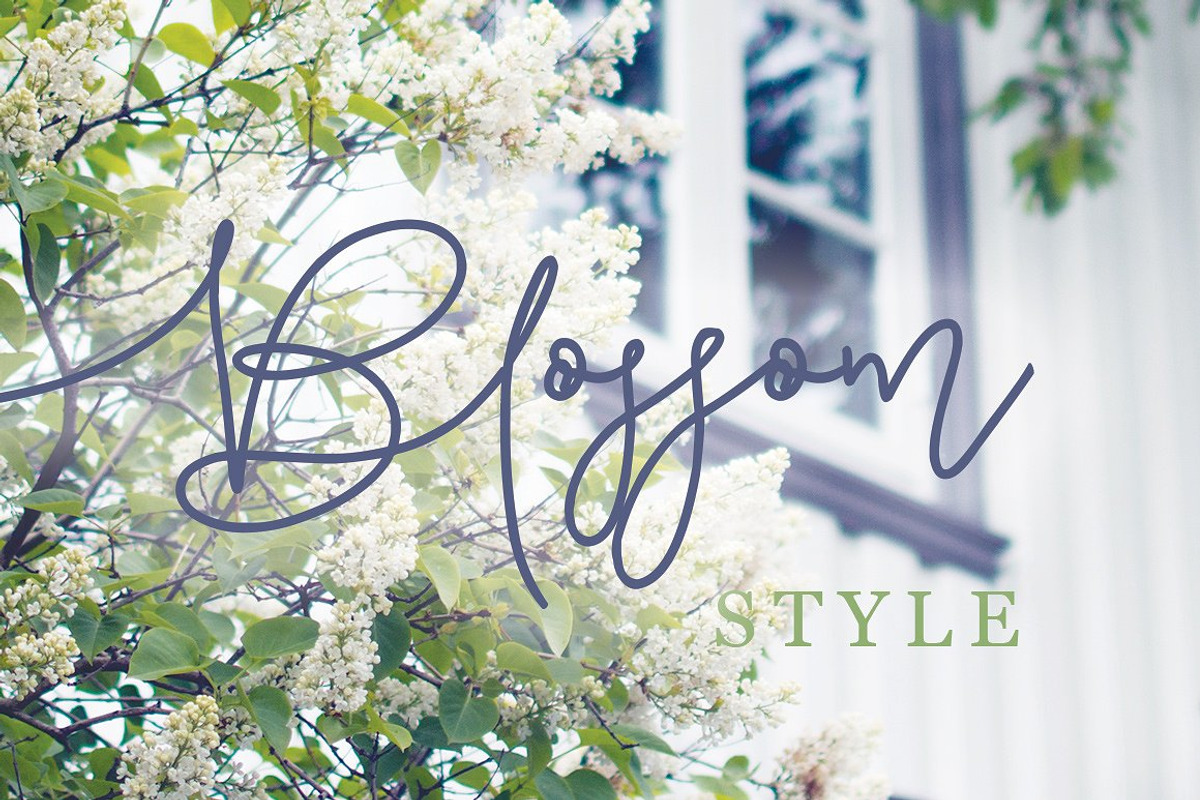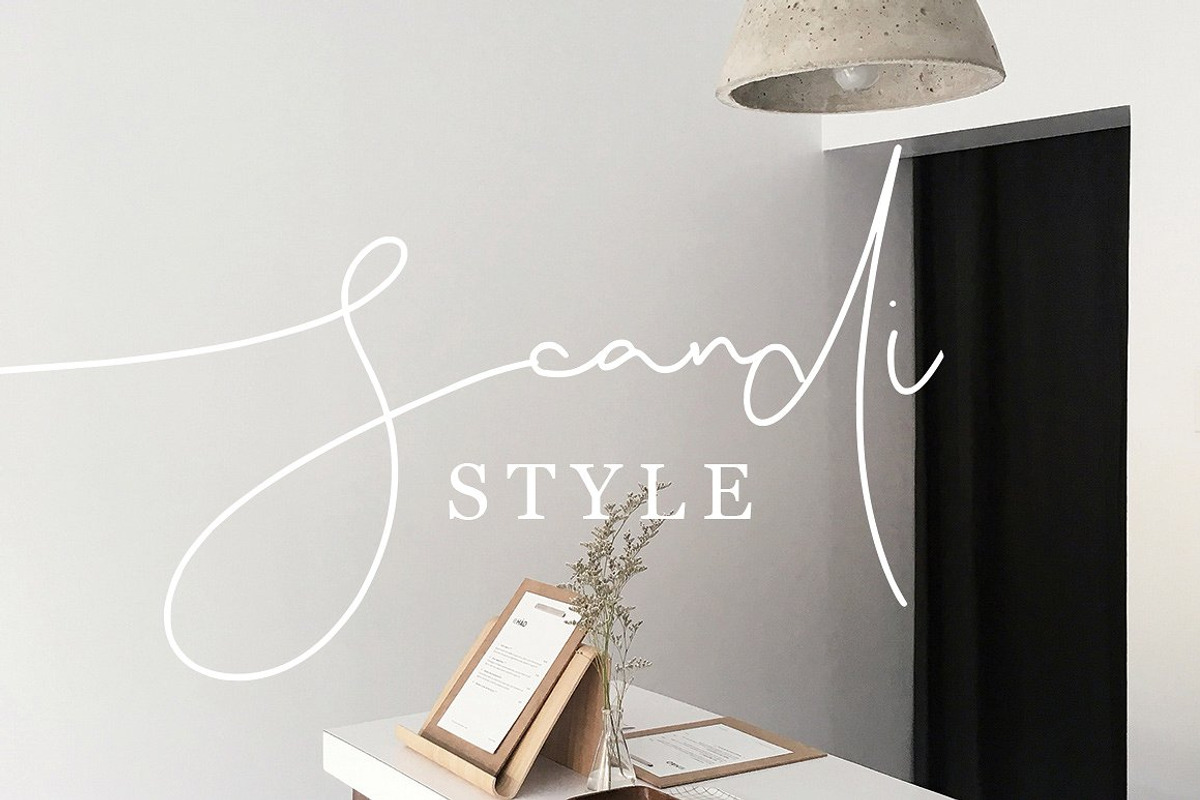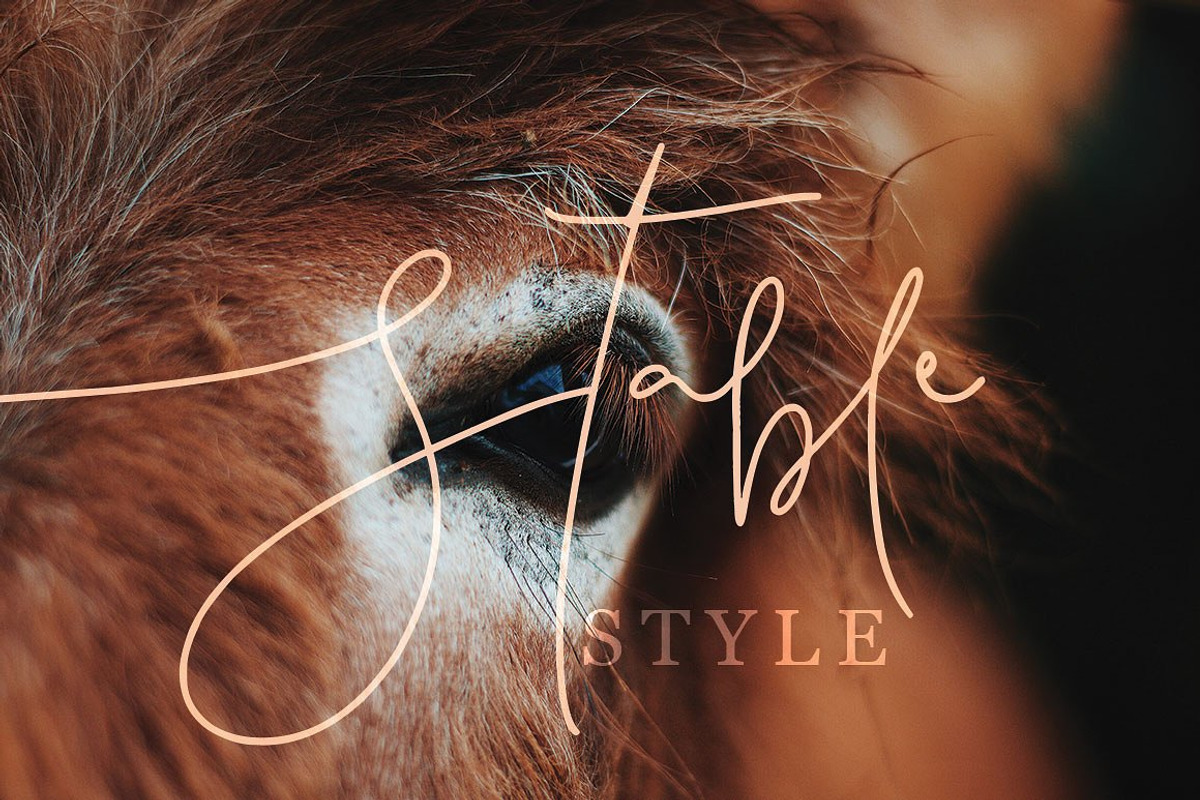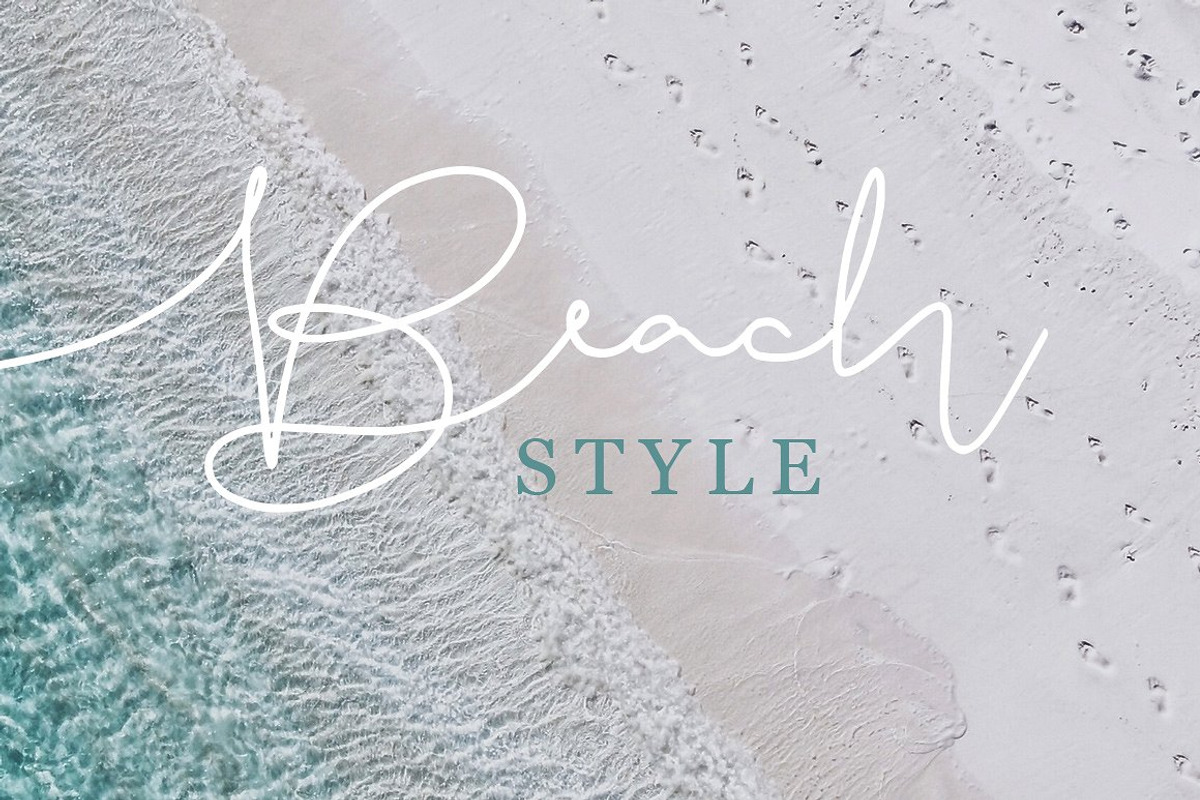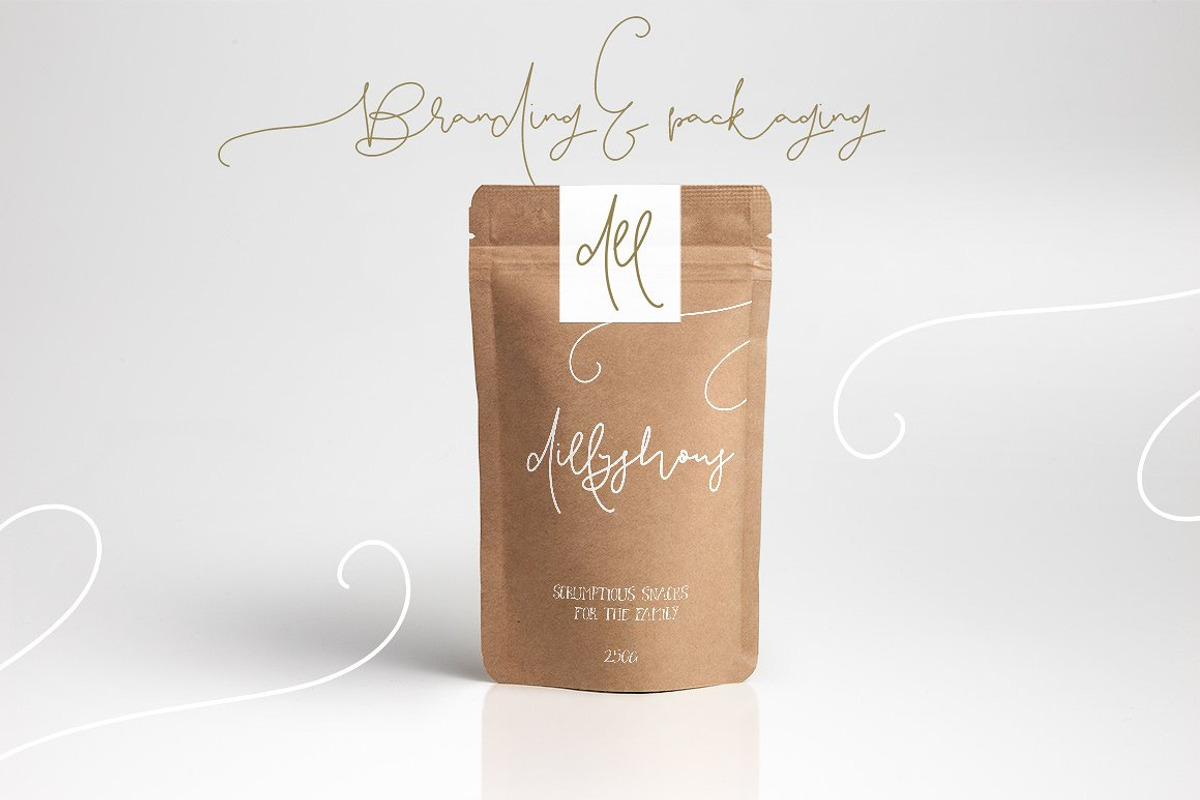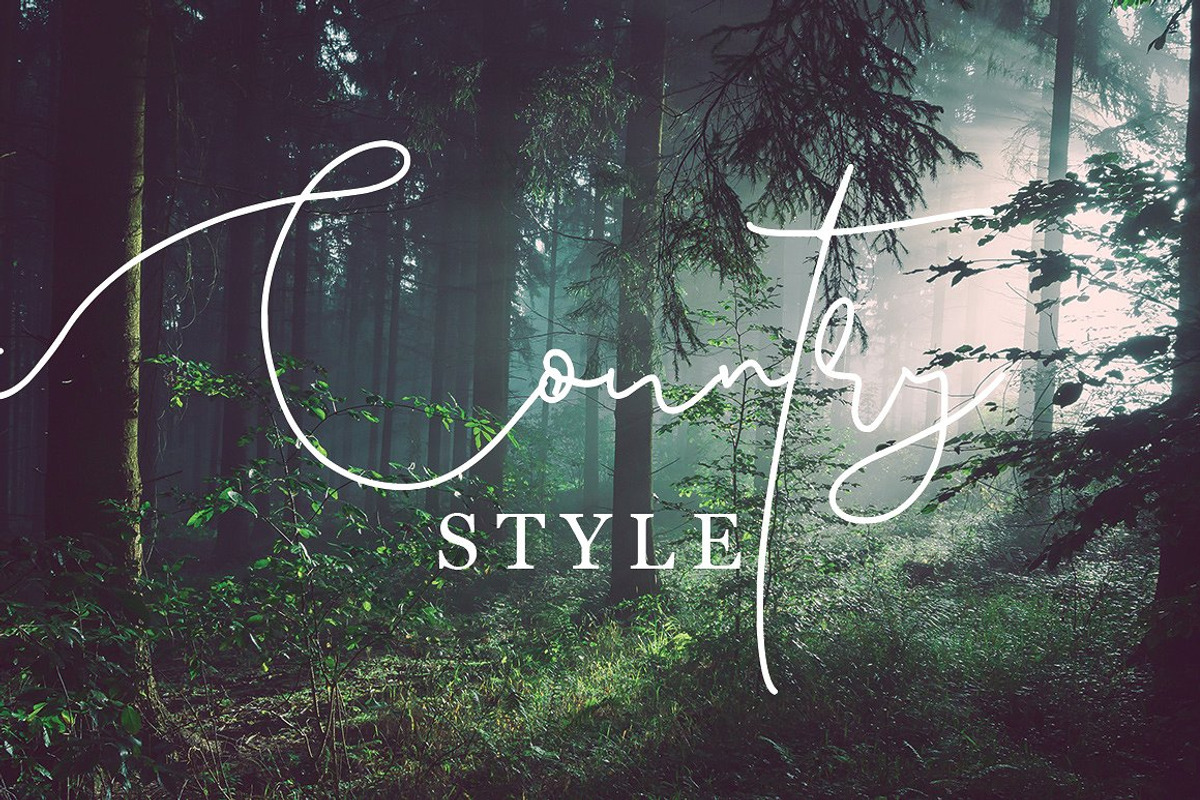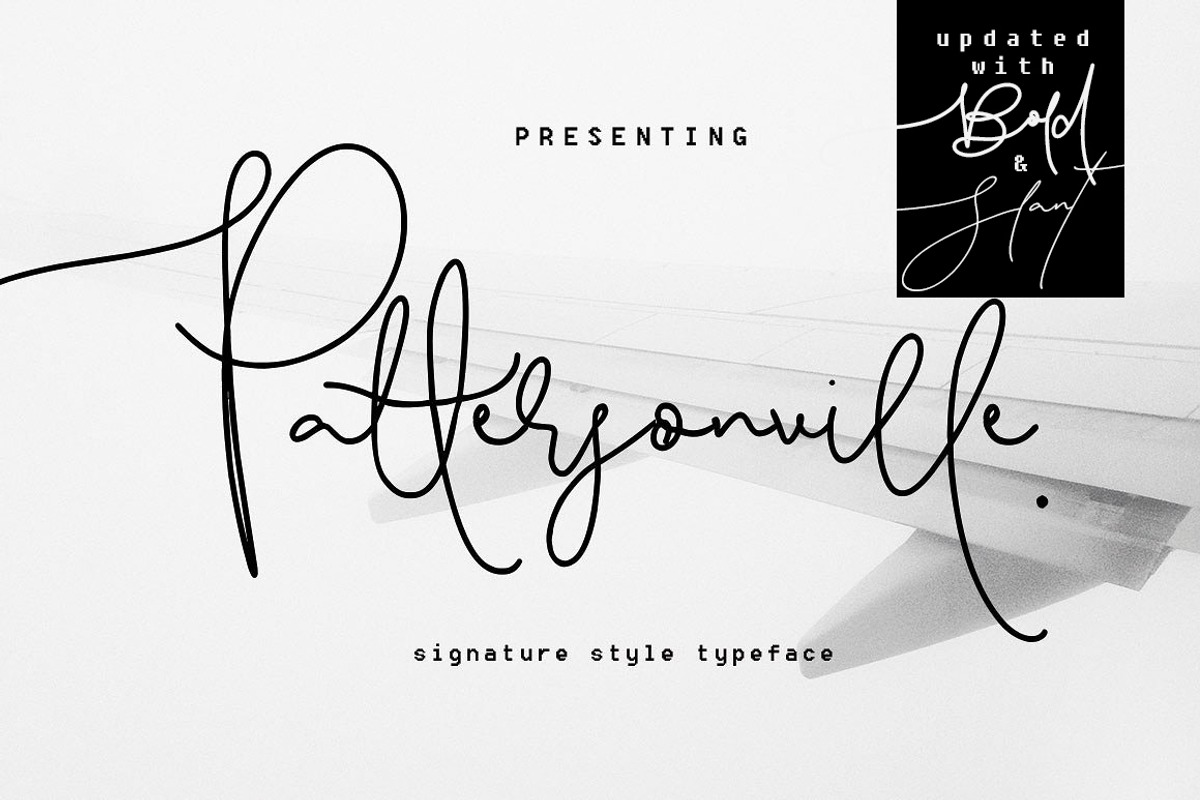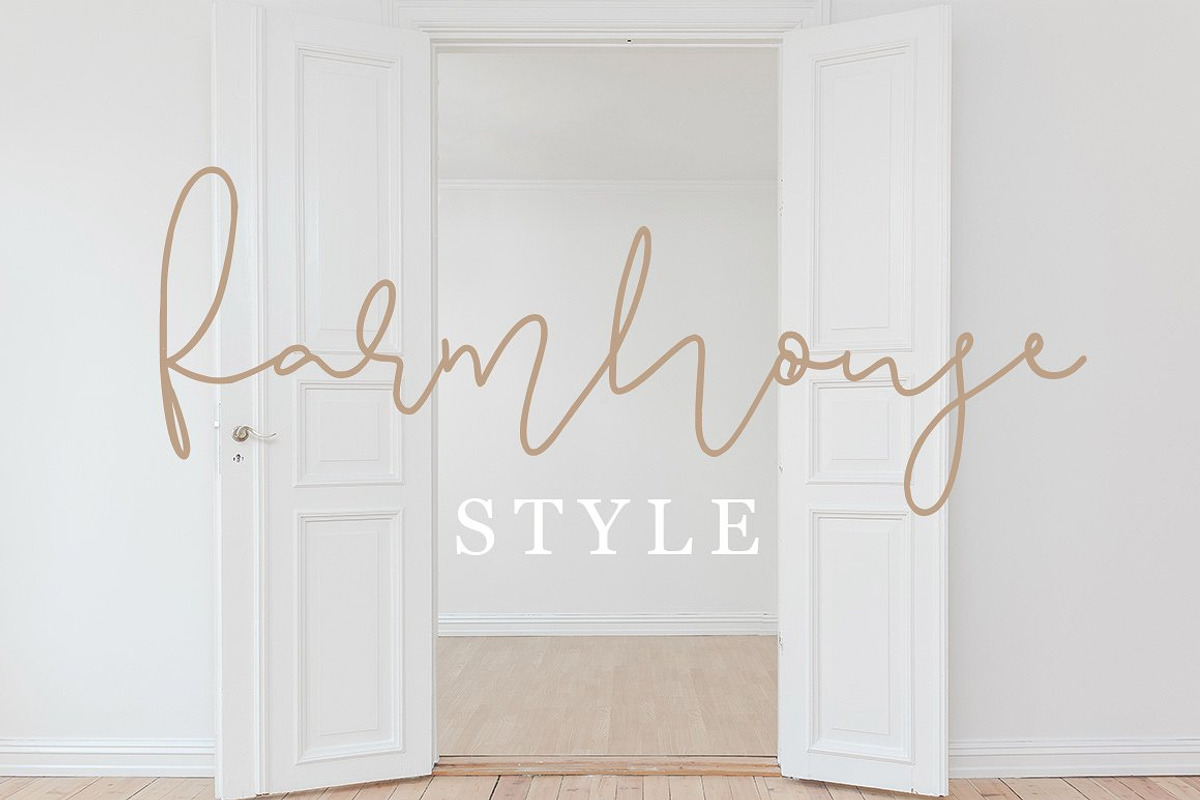
Pattersonville Script Font
Pattersonville Script Font by Creativeqube Design is a font selected for branding, posters, packaging, typography.
- UPDATE 17th June - Now includes Bold and Slant versions!
- UPDATE - Now includes International Characters, more unique ligatures for double letters, and improved Uppercase G,J, L, Q, Introducing the
- It includes ligatures for double letters such as dd, ee, ff ll, oo, rr, ss, tt - giving it a genuine hand written look.
Why Pattersonville Script Font is worth a look
Pattersonville Script Font by Creativeqube Design fits naturally into Branding, posters, packaging, typography.